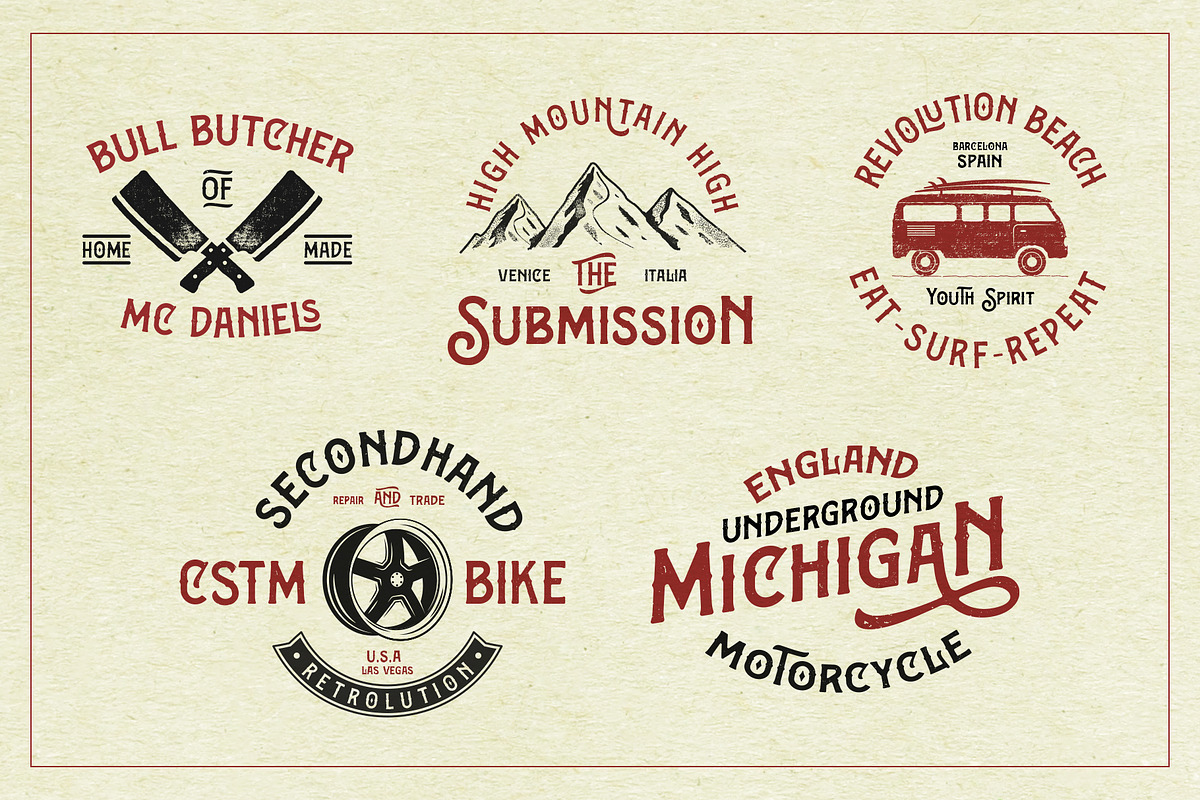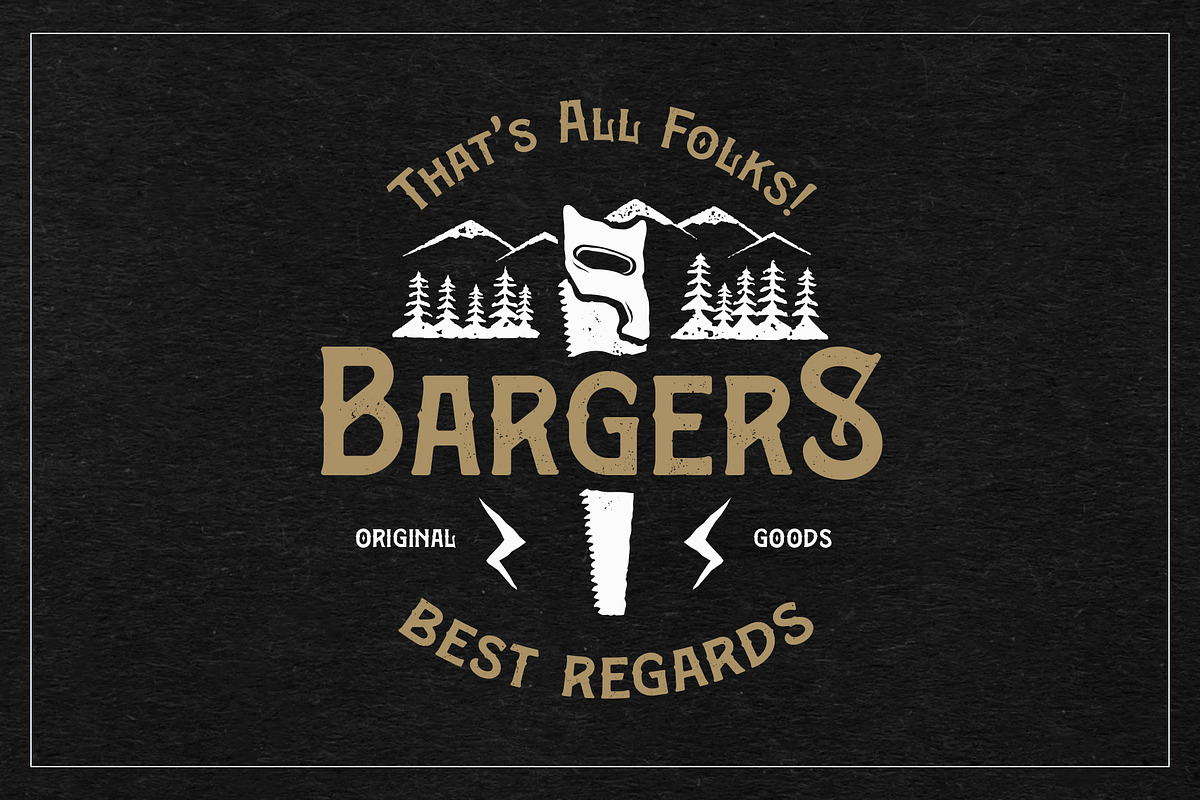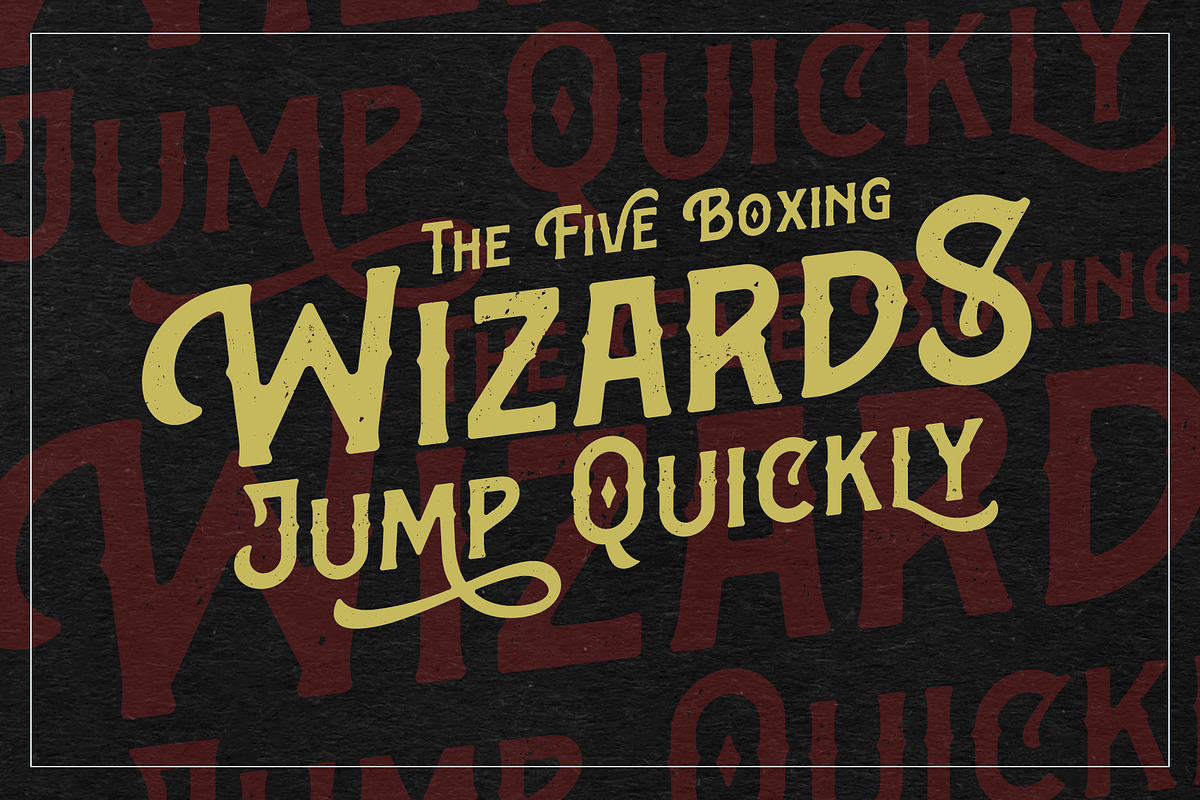
Bargers Distressed
Bargers is a solid typeface which explored with curve and some distressed touch. The letter shapes become much better instead of solid style when it transformed into the aged style. Bargers has a wide adjustment between letters to give vintage looks and simulate old printing.
Bargers Distressed is all-capitals typeface, perfect for vintage or old style, especially for vintage logo, store, company, t-shirt, merchandise, flyers and etc. Complete with discretionary ligatures to give catchword like 'the', 'and' 'only' etc. Bargers Distressed also has beautiful swashes, contextual alternates, and other OpenType features.
- Small capitals
- Standard punctuation
- Some accents
- Standard ligatures
- Discretionary ligatures
- Contextual alternates